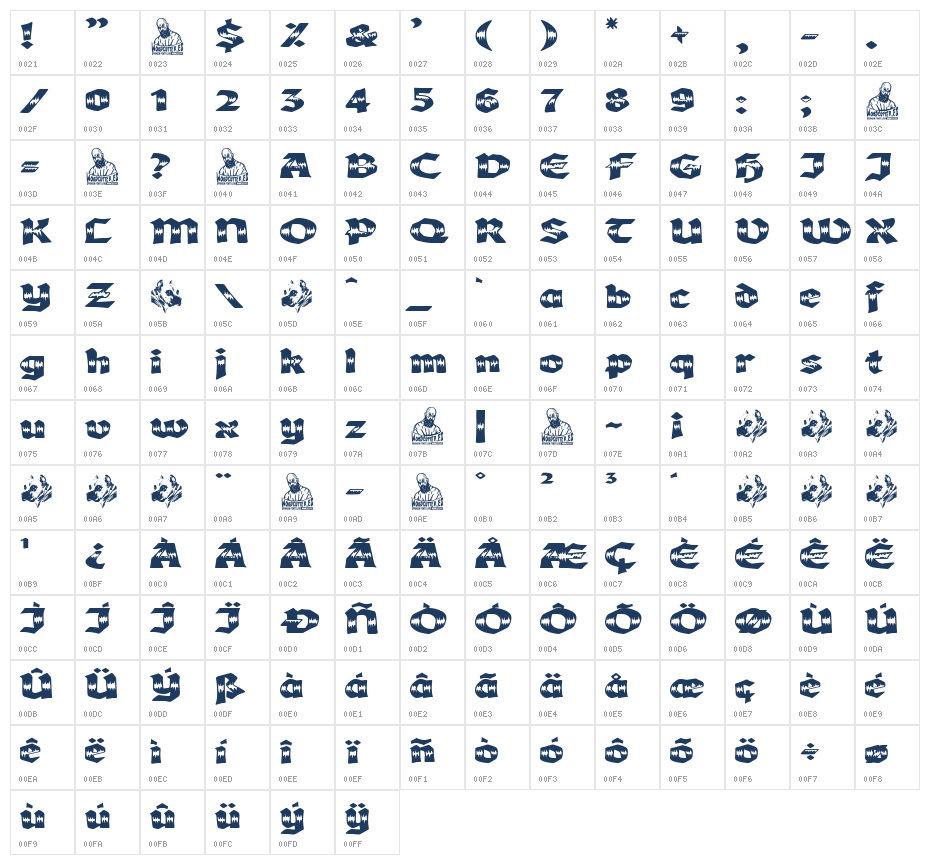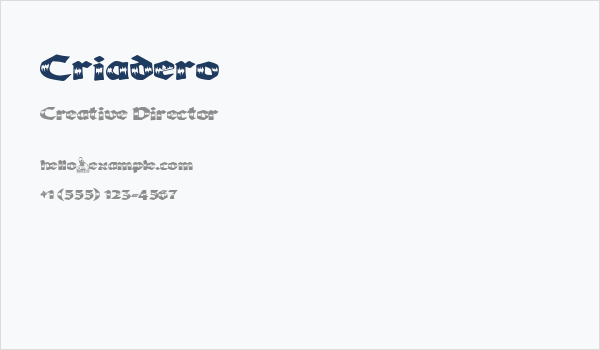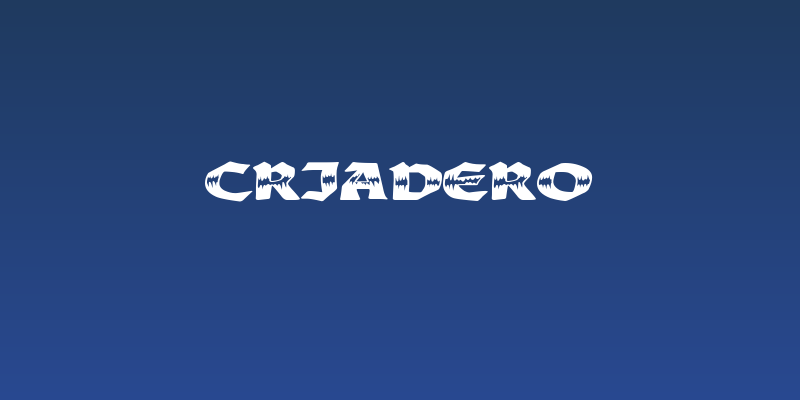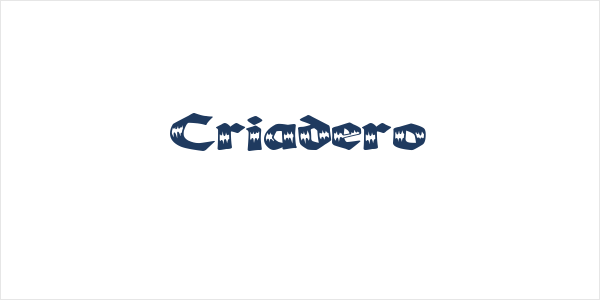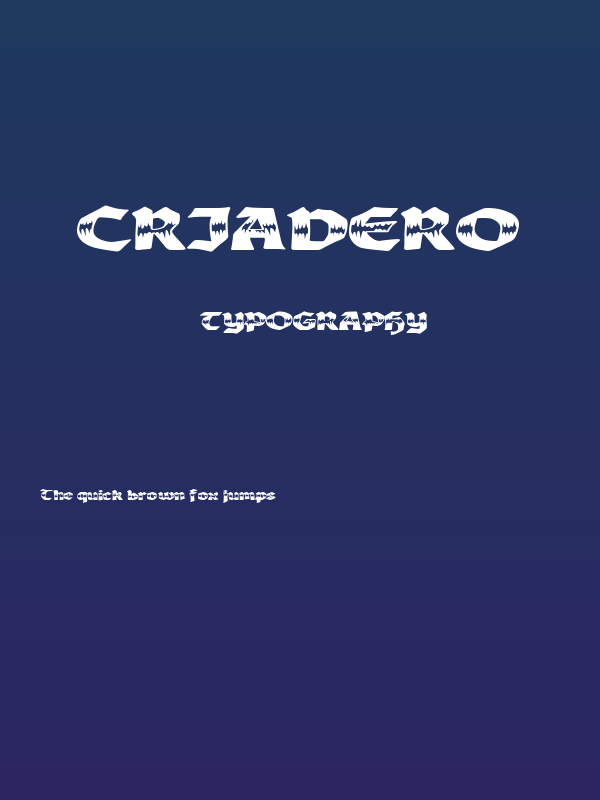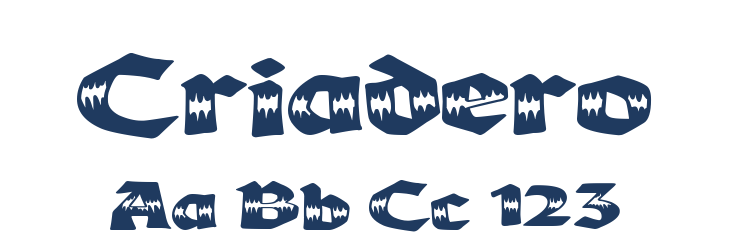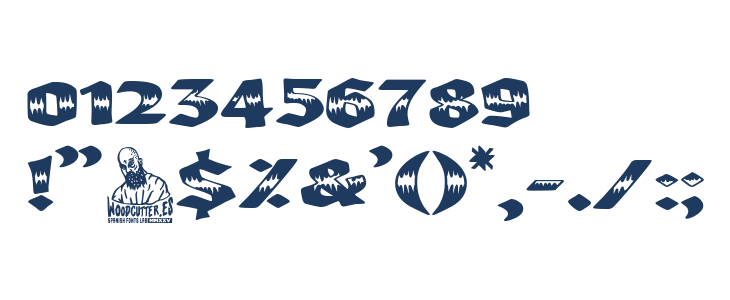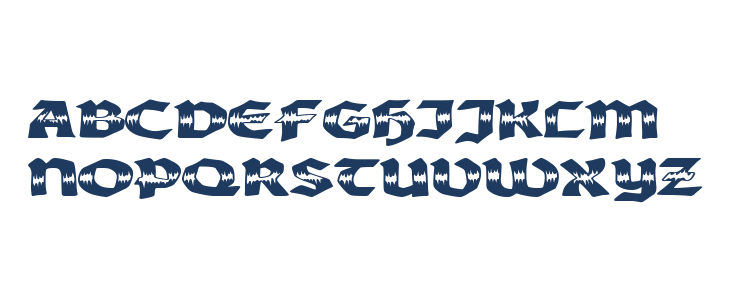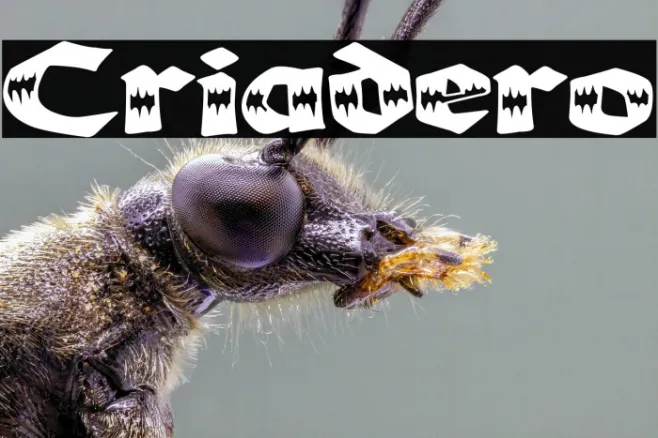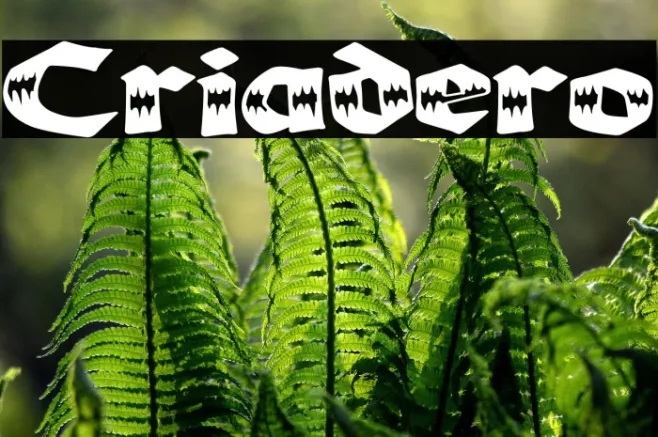
Criadero Font
Criadero Description
A bold, decorative display font with a jagged, edgy style reminiscent of lightning or cracks, featuring uppercase and lowercase letters, numbers, and special characters.
| Overall Style | Edgy, Bold, Decorative |
| Use Case | Headlines, Posters, Logos, Titles |